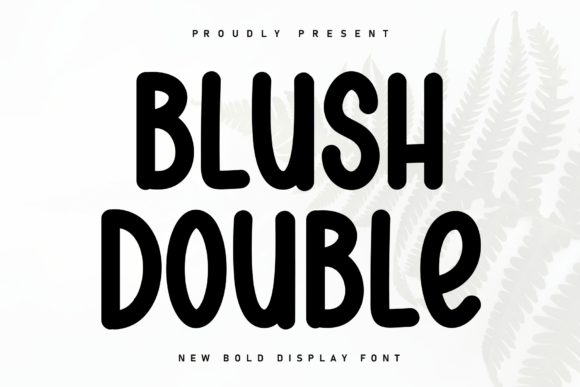
The Sweet Charm of Blush Double Font
Have you ever been in the middle of a design project, and suddenly, you’re stuck on finding the perfect font? I certainly have! It was a lovely summer afternoon when I was working on a branding project for a cozy little café. My client wanted a font that would evoke a sense of warmth and comfort. After hours of searching, I stumbled upon Blush Double Font, and it instantly stole my heart! In this article, I’ll share my experience with this beautiful handwritten font, its features, and how you can make the most of it in your designs.
A Personal Review of Blush Double Font
Blush Double Font is a sweet and beautiful handwritten font that features characters dancing along the baseline, adding a cozy accent to any design project. Here’s what I love about it:
• ✨ Sweet and feminine touch: Blush Double Font is perfect for designs that require a touch of elegance and whimsy.
• ✅ Highly legible: Despite its playful nature, the font remains clear and easy to read, even at smaller sizes.
• 🌸 Versatile: It can be used for a wide range of design projects, from branding and packaging to invitations and social media graphics.
However, I did notice a few quirks:
• 🤔 Limited use in formal designs: Blush Double Font may not be the best fit for formal or corporate designs, as it can come across as too playful or whimsical.
• ⚠️ Some characters may require manual kerning: Depending on the word or phrase, some characters may require manual kerning to achieve optimal spacing.
The Story Behind Blush Double Font
Blush Double Font was created with the intention of capturing the essence of a warm, cozy afternoon. The designer aimed to create a font that would evoke feelings of comfort and playfulness. Although the exact story behind the font is unknown, it’s clear that the designer succeeded in creating a beautiful, handmade font that adds a touch of personality to any design.
Font Name Blush Double Font
Author ArtLine Design
What is Blush Double Font best used for? Blush Double Font is perfect for designs that require a touch of elegance, whimsy, and playfulness, such as branding, packaging, invitations, and social media graphics.
Is Blush Double Font suitable for body text? While Blush Double Font is highly legible, it’s best used for headlines, titles, and short paragraphs. For longer body text, a more traditional font might be more suitable.